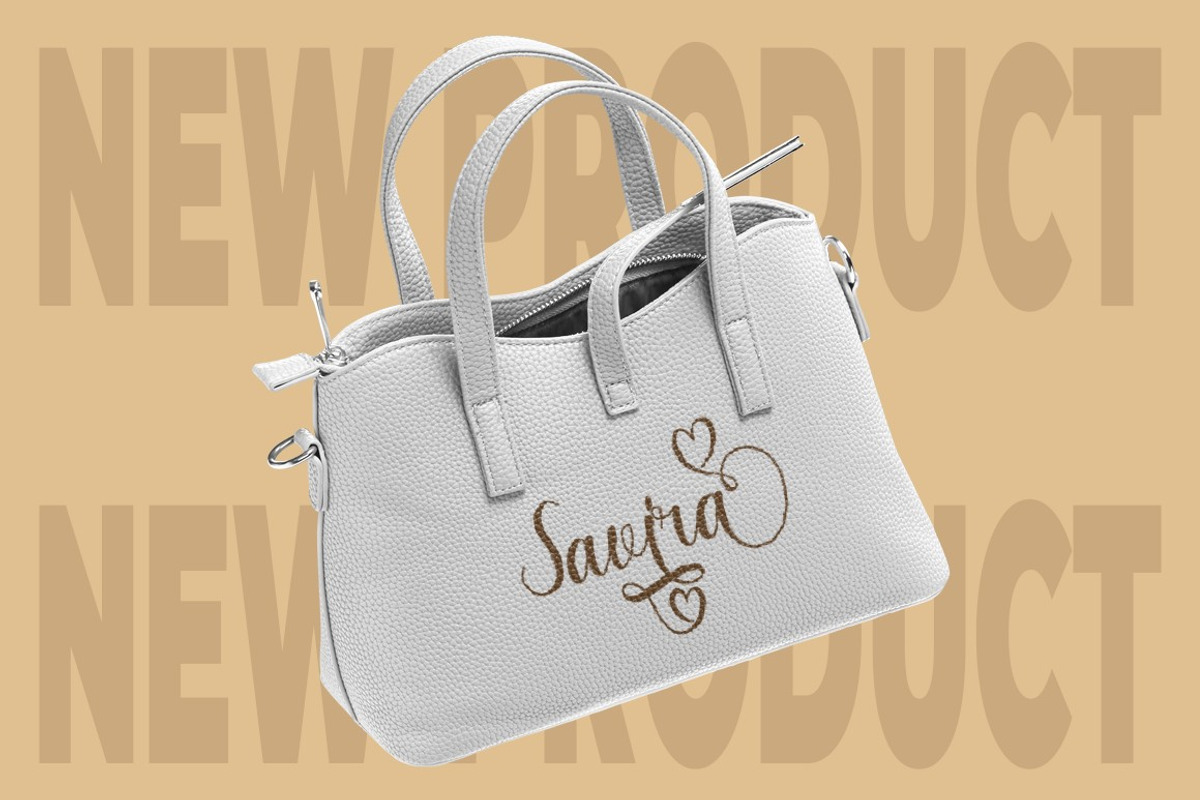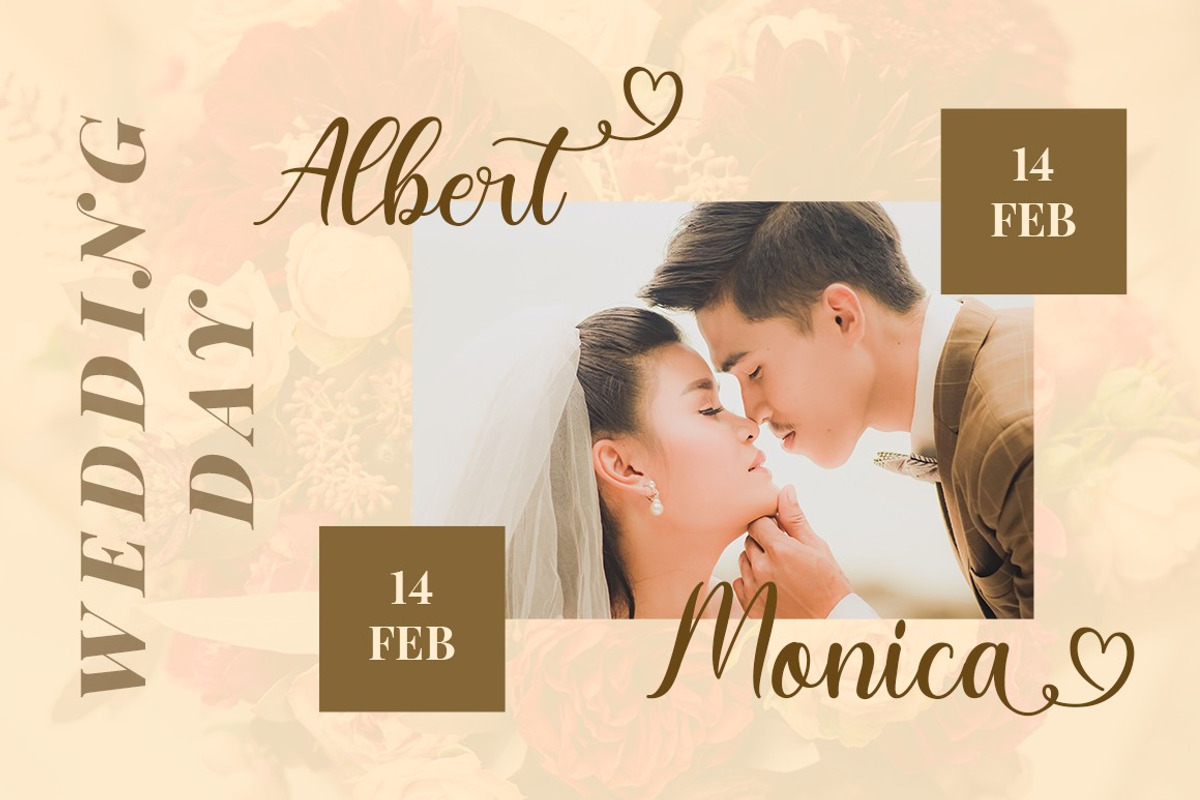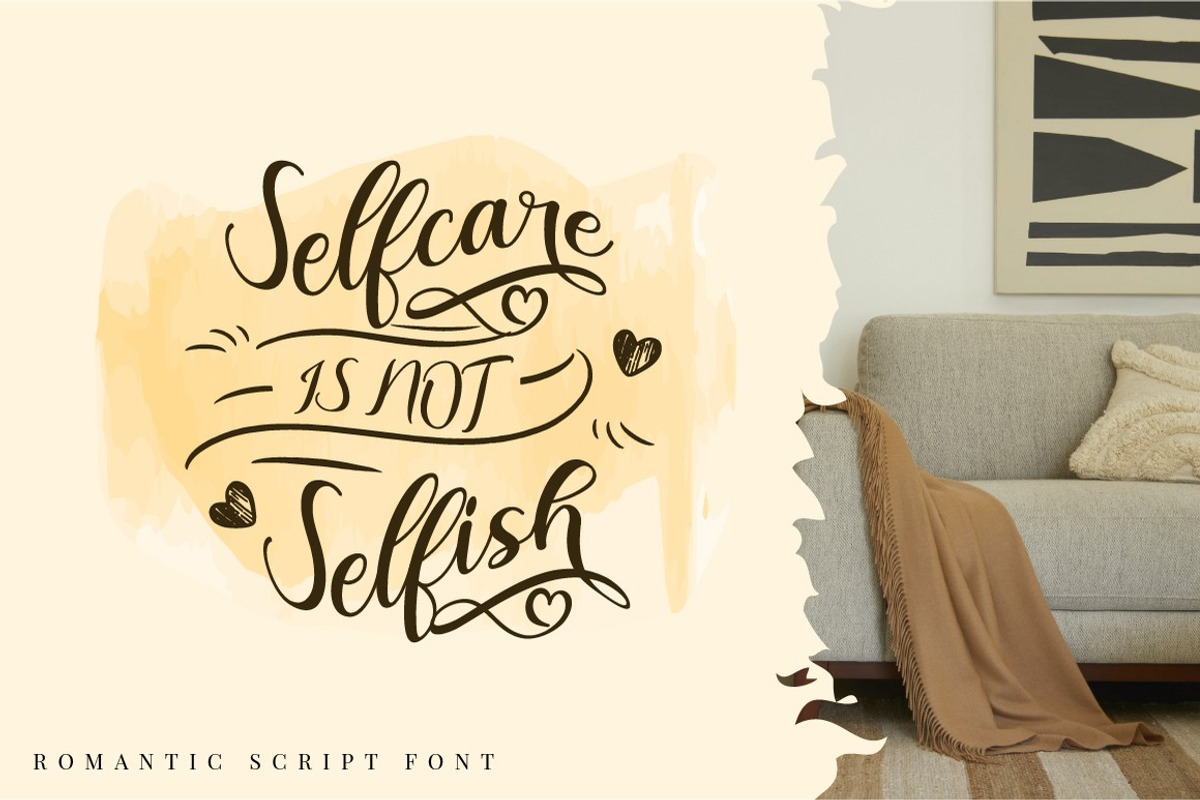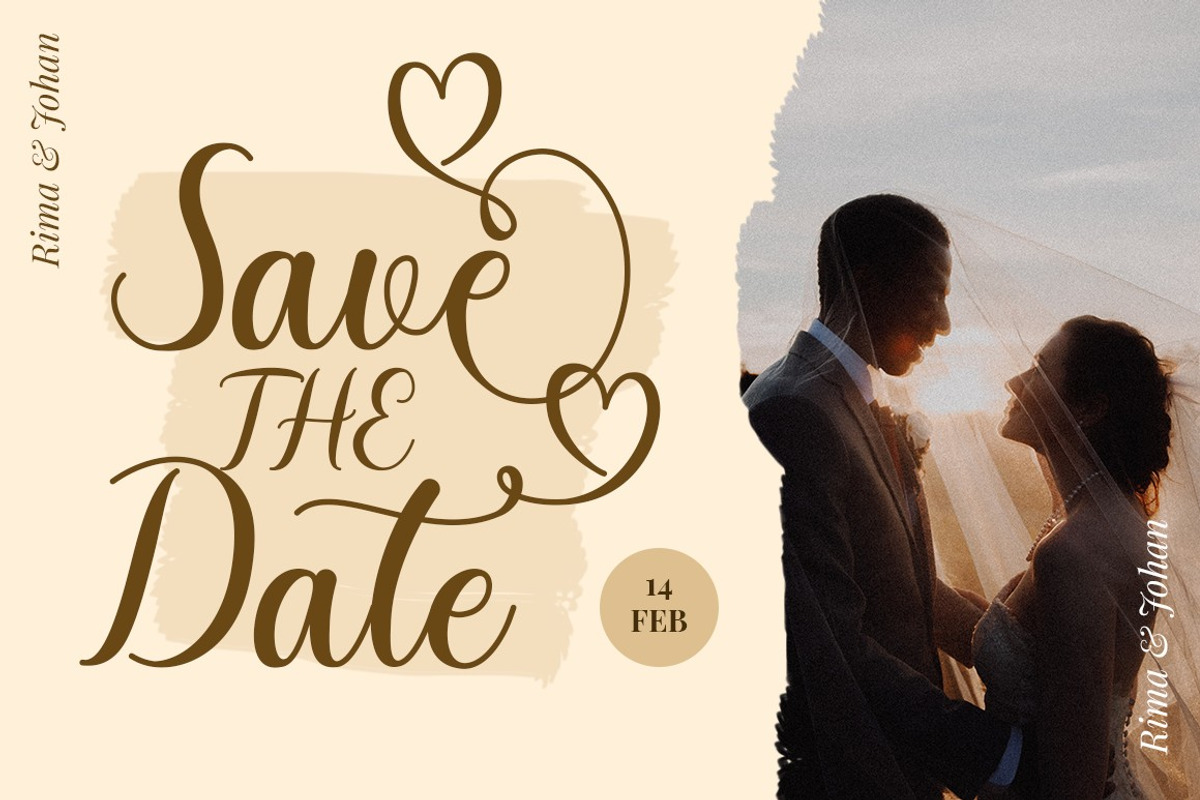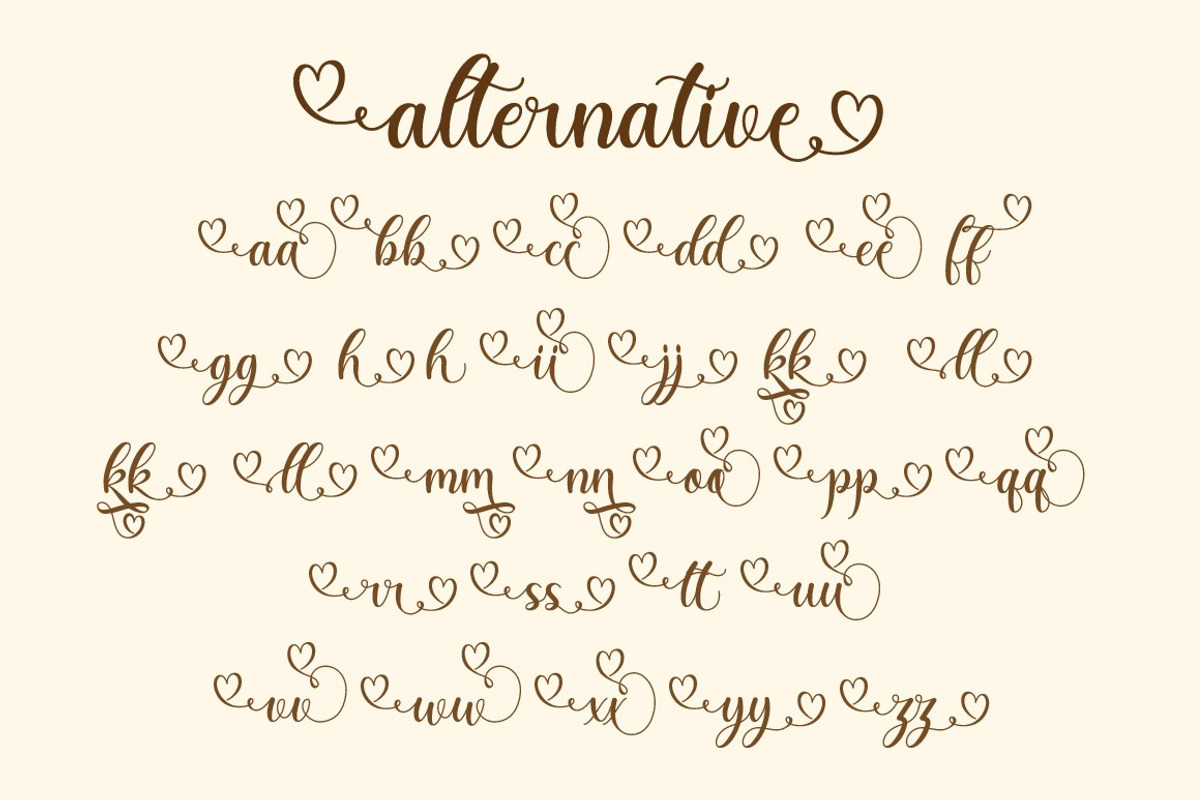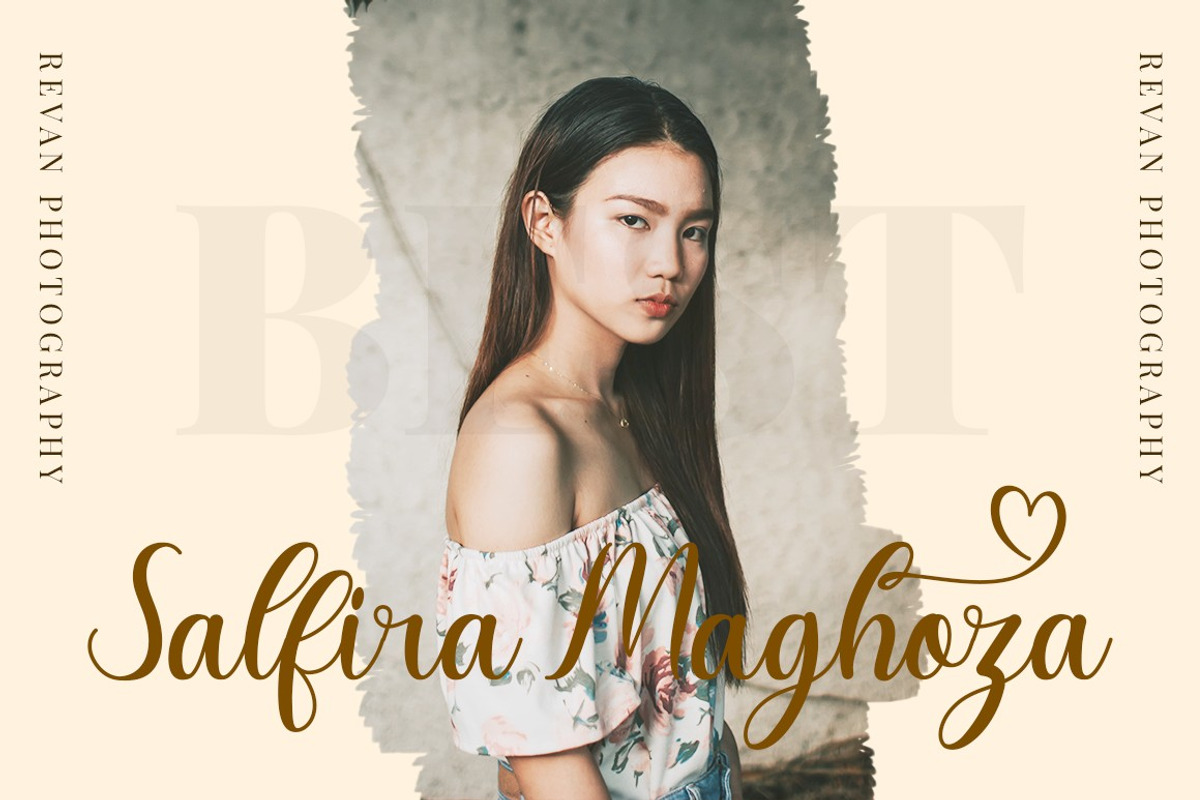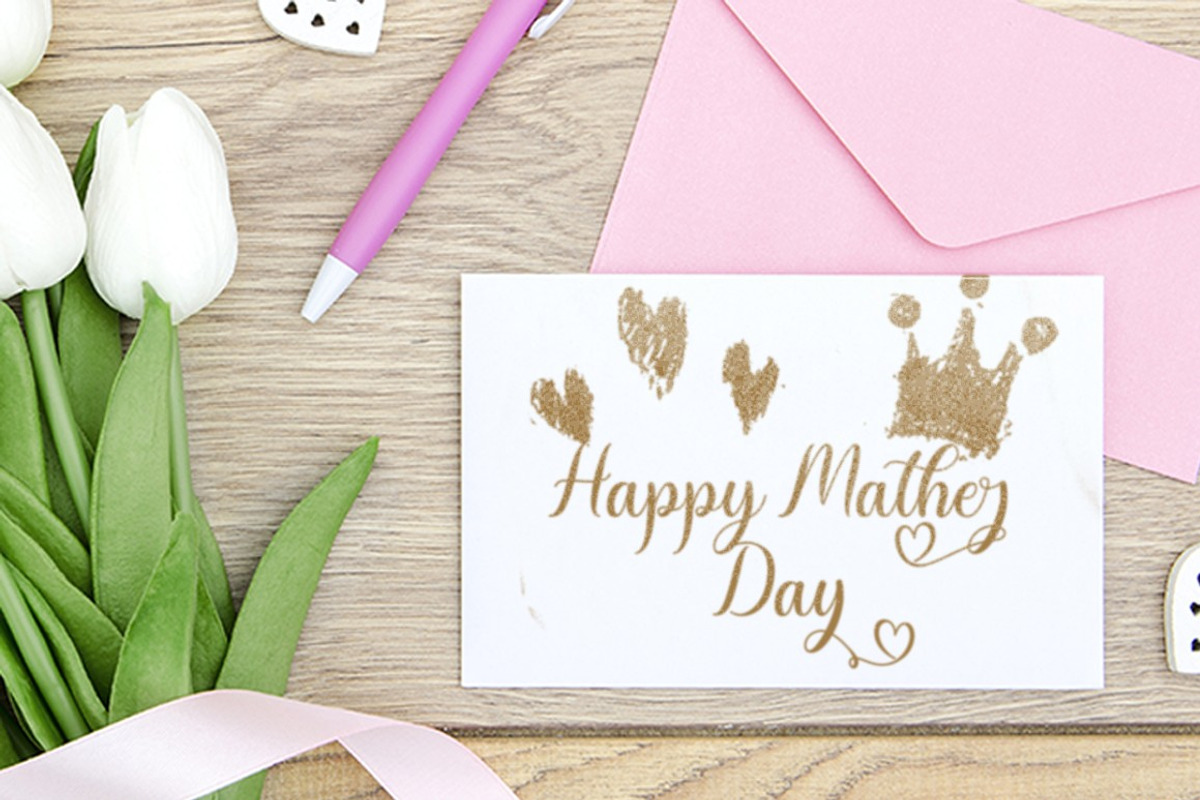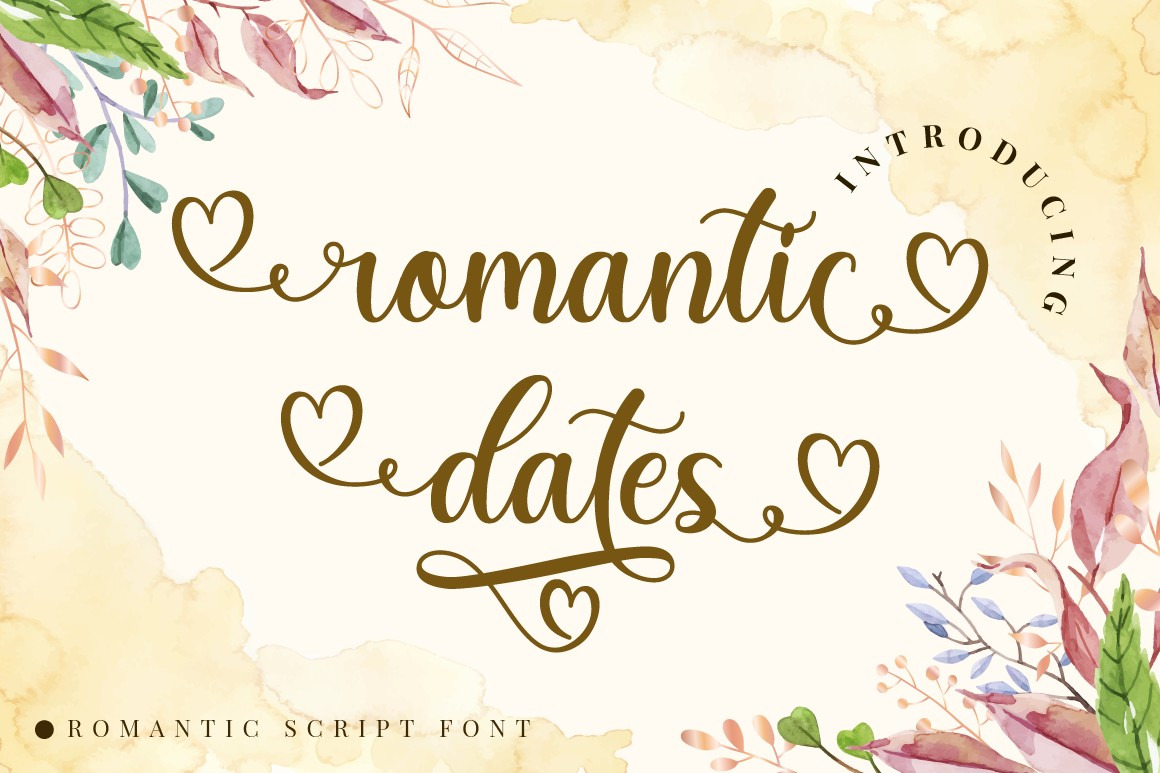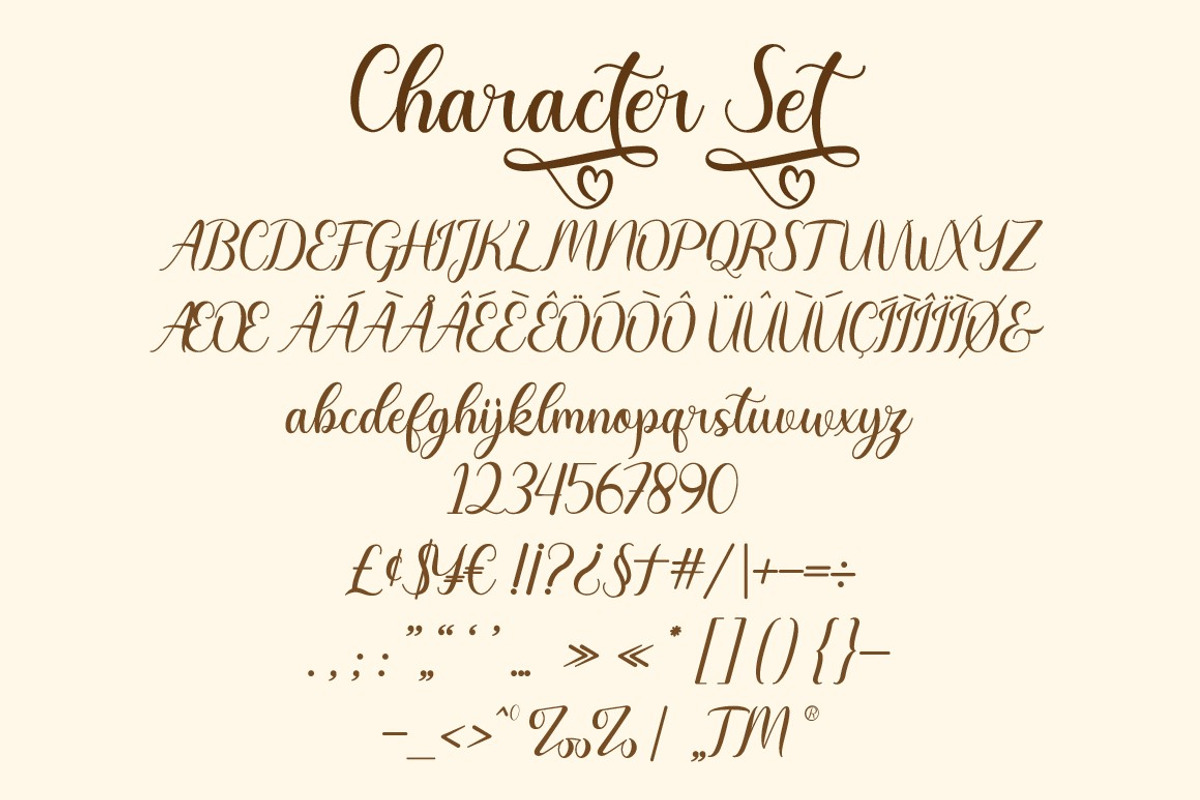
Romantic Dates - Love Font
Romantic Dates
Introducing a beautiful romantic script font called "Romantic Dates", a special fonts for valentine and wedding events. Come with open type feature with a lot of alternates and end swash, its help you to make great lettering. Romantic Dates best uses for valentine, wedding, invitation, heading, cover, poster, logos, quotes, product packaging, header, merchandise, social media & greeting cards and many more. This font is also support multi language.
Comes with feature :
- Number, Punctuation And Symbols
- Multilanguage Support.